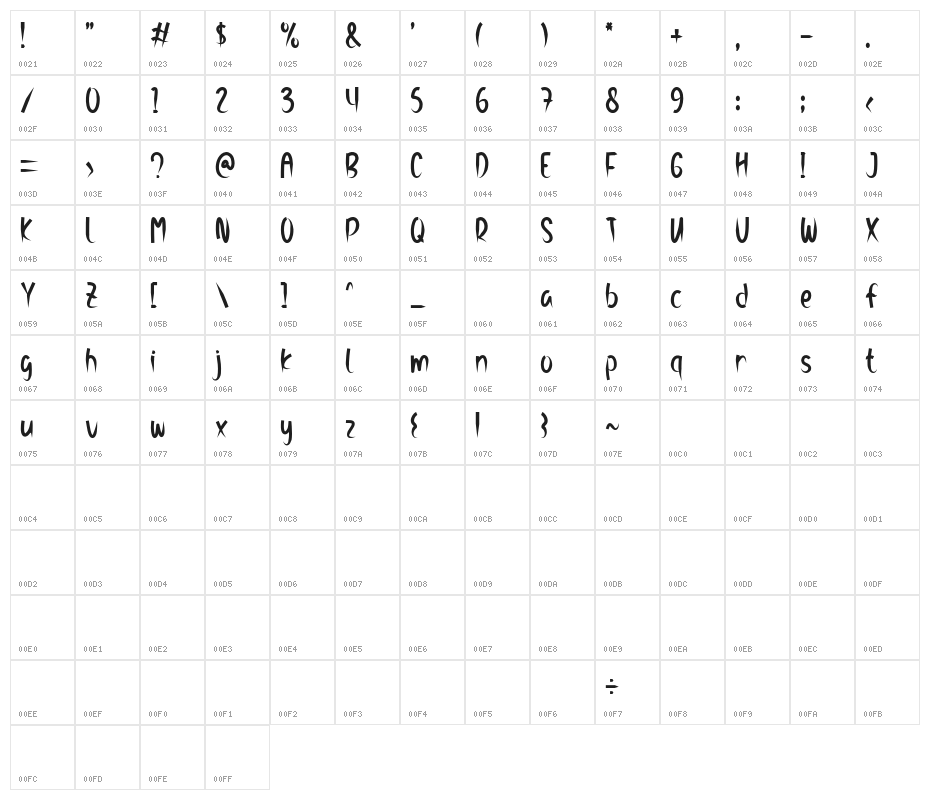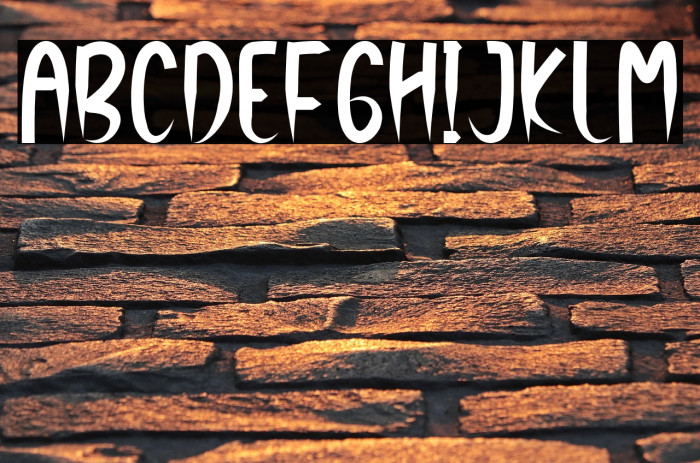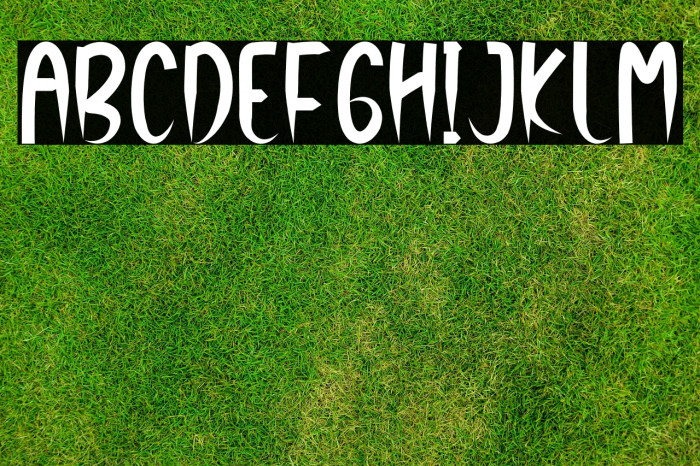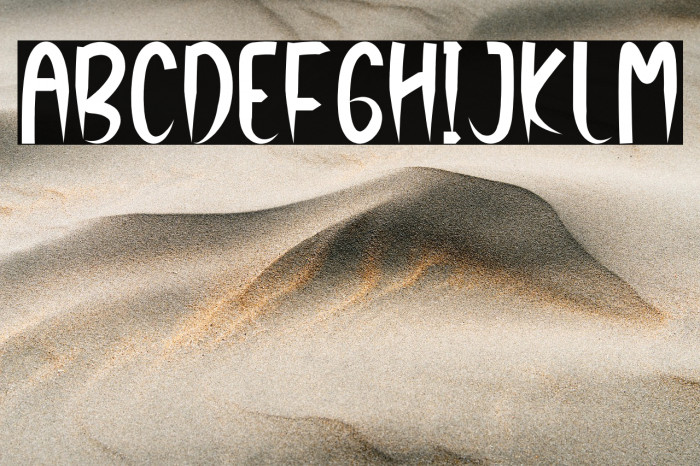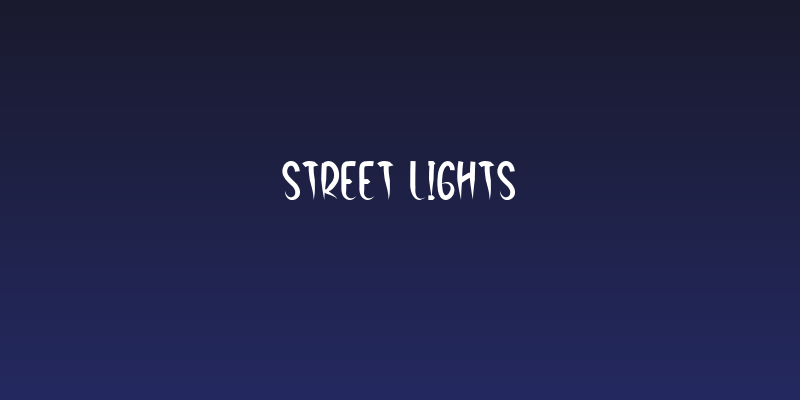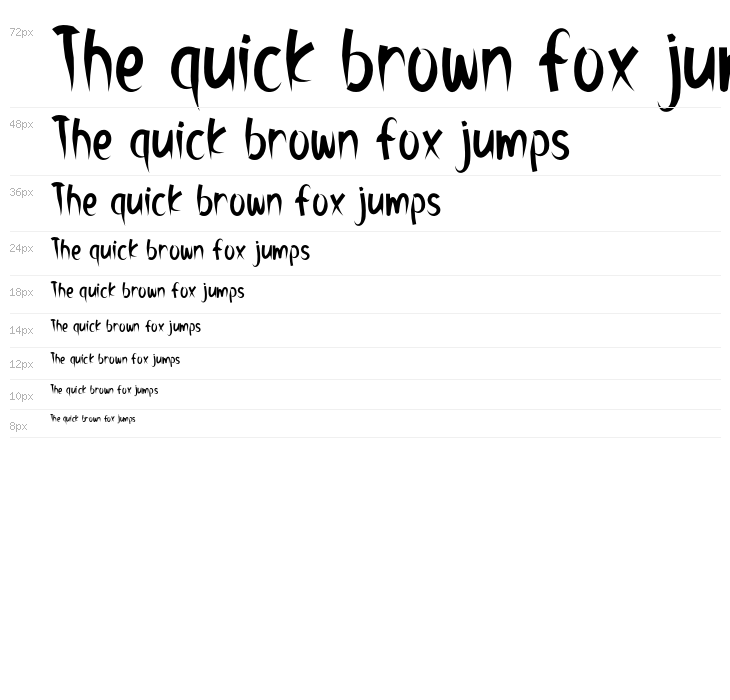
Street Lights Font
Street Lights Description
This font features a dynamic and energetic style with a handwritten appearance. The characters have a playful and slightly irregular form, giving them a lively and informal feel. The strokes are bold and varied, with some letters having sharp, pointed ends while others are more rounded. This creates a sense of movement and spontaneity. The uppercase and lowercase letters maintain a consistent style, with a slight slant that adds to the casual vibe. The numbers and special characters are designed to match the overall aesthetic, making the font versatile for various creative applications.